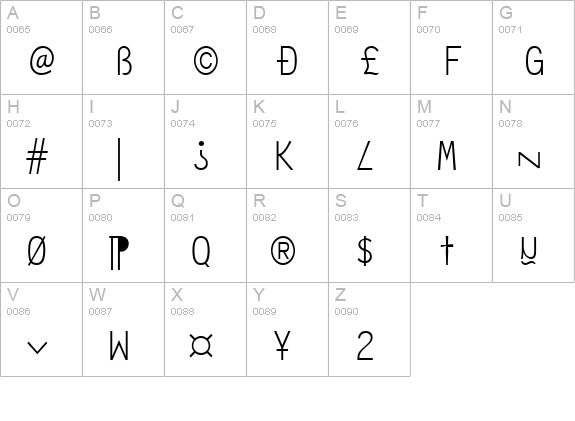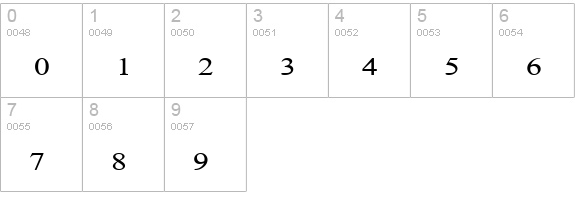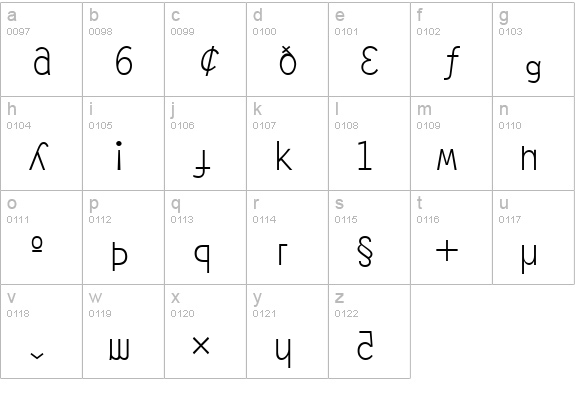
Anarchy Mono Font Details
Anarchy Mono font is a bold and edgy typeface that exudes a rebellious attitude. Its sleek monospaced design gives it a modern and minimalist aesthetic, making it perfect for projects that require a touch of nonconformity. The sharp lines and distinct characters of Anarchy Mono make it stand out in any design, whether it's for posters, branding, or editorial layouts. What sets Anarchy Mono apart is not just its unique style, but also the fact that it is free to download. That's right, you can get your hands on this striking font at no cost on FontsMarket.com. Embrace the freedom to express yourself creatively with Anarchy Mono font and make a bold statement in your next project.